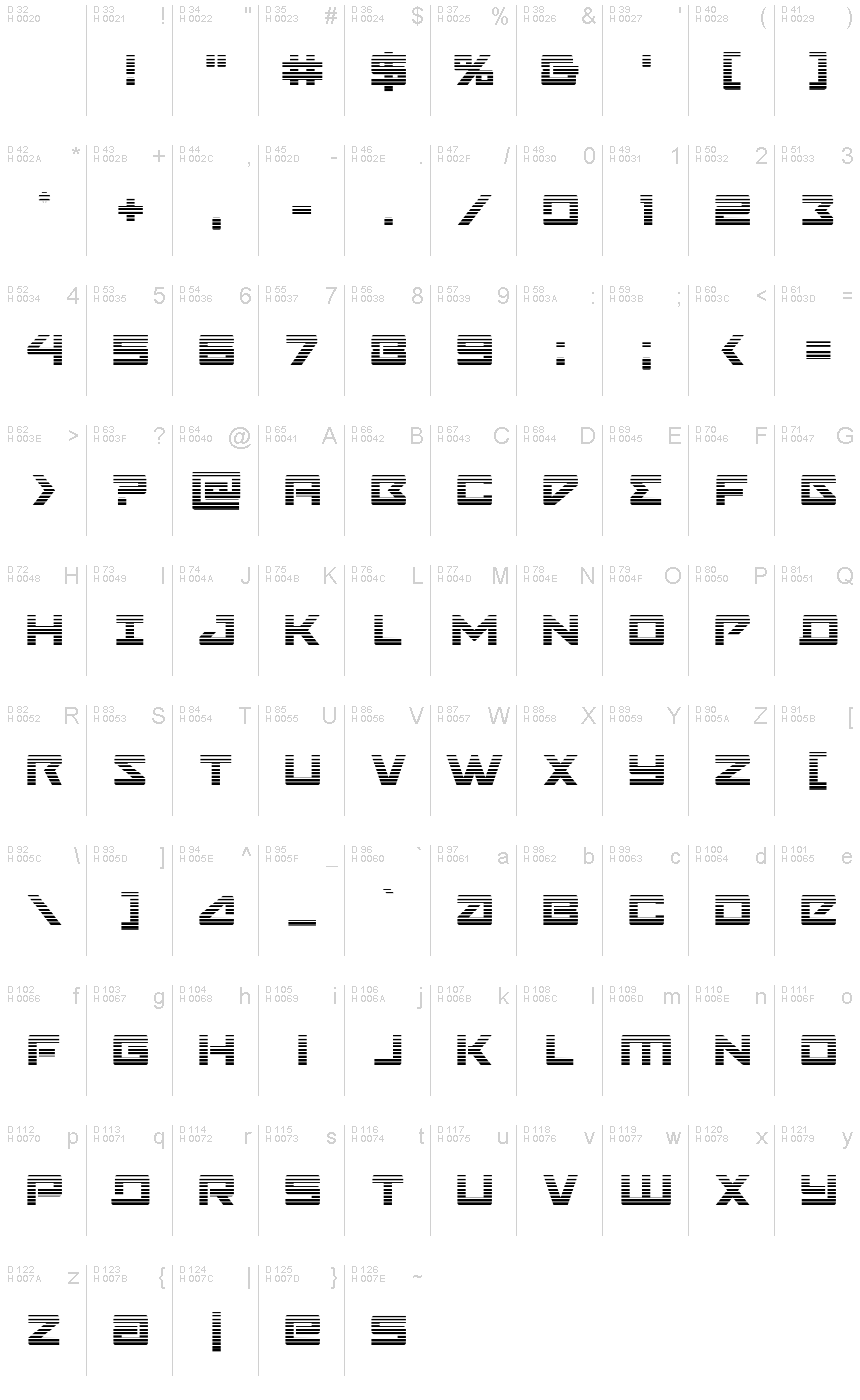
Navy Cadet Gradient
Navy Cadet Gradient is a bold and futuristic display font that exudes a sense of strength and authority. With its expanded width and gradient effect, this font makes a striking visual impact, commanding attention with its sleek, contemporary aesthetic. Designed by Daniel Zadorozny, Navy Cadet Gradient is a versatile choice for a wide range of applications, from headings and titles to branding and packaging. Its unique blend of modern flair and classic militaristic influences makes it an excellent option for projects that require a touch of edgy sophistication.
The font's expansive, geometric letterforms and subtle gradient shading lend it a distinct technological edge, making it well-suited for use in digital media, product design, and other cutting-edge contexts. Navy Cadet Gradient's bold presence and legibility also make it a suitable choice for signage, event branding, and other high-impact applications where a strong, memorable visual identity is desired.